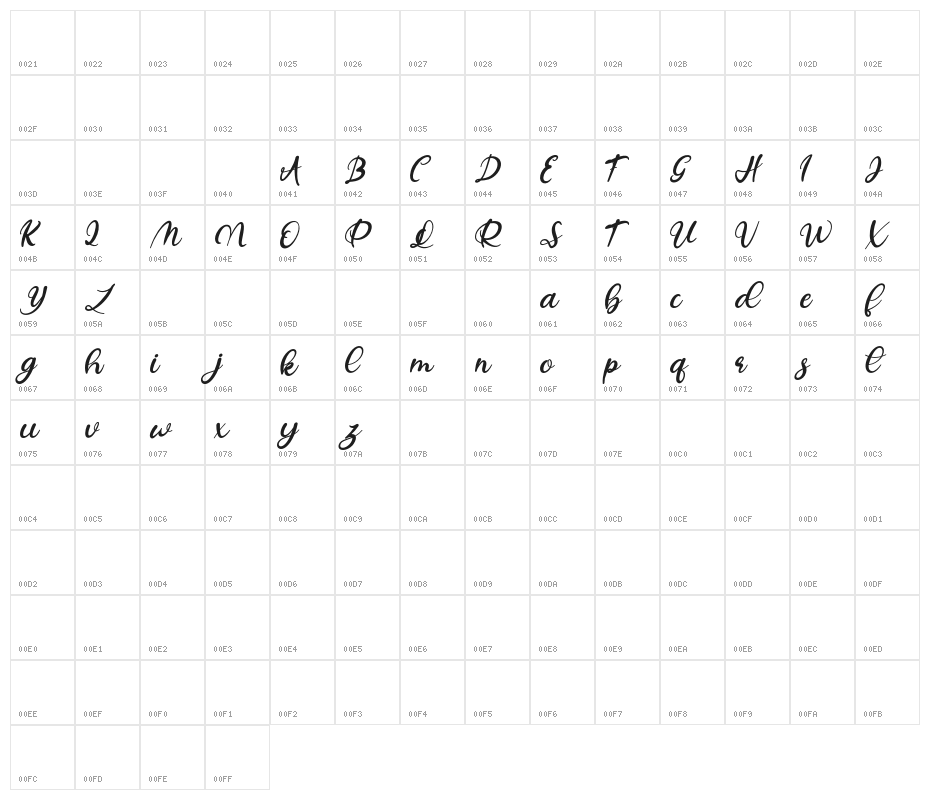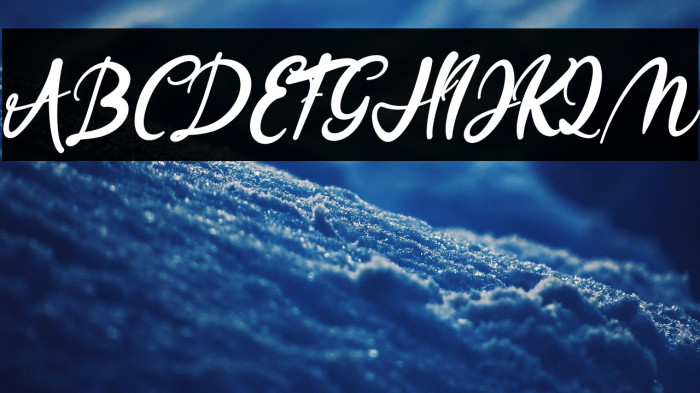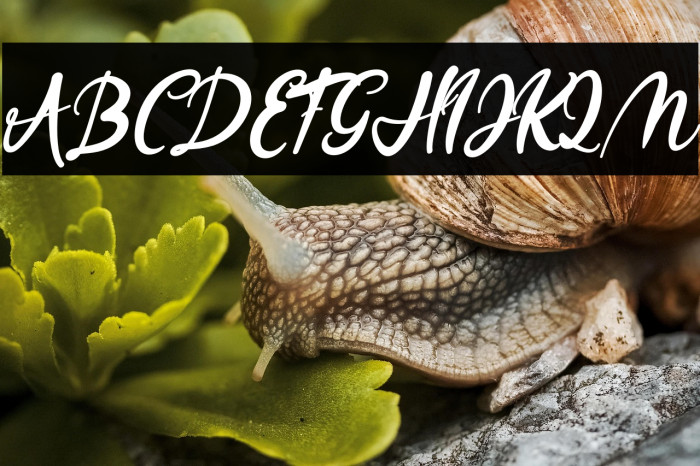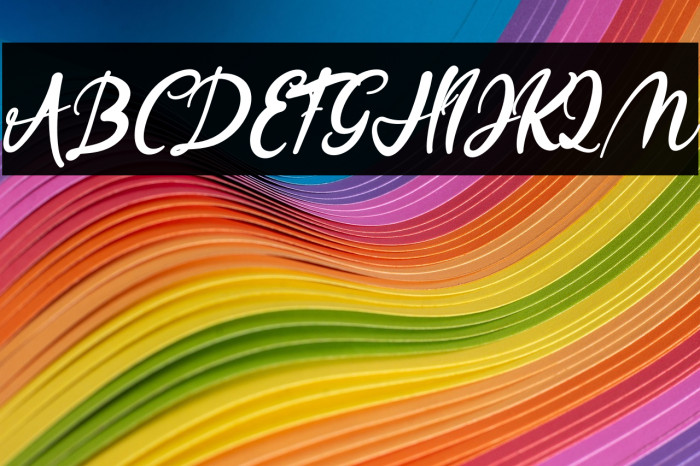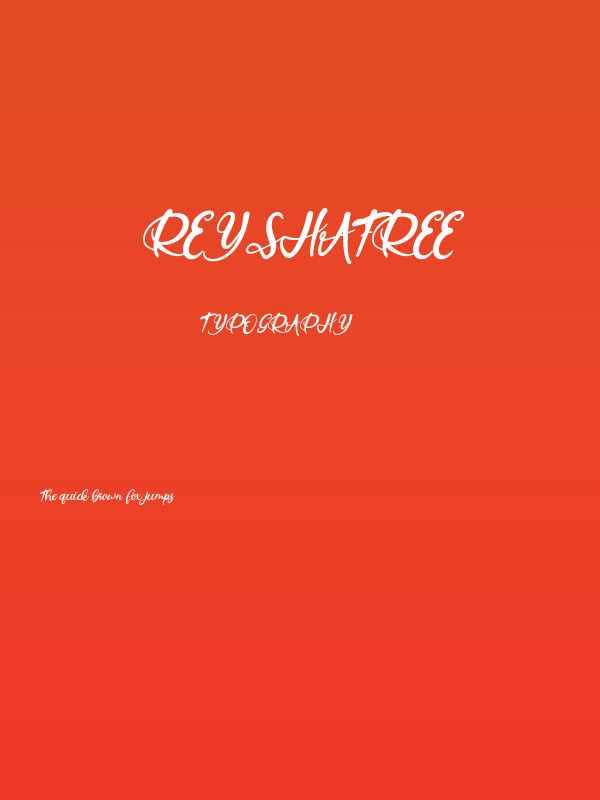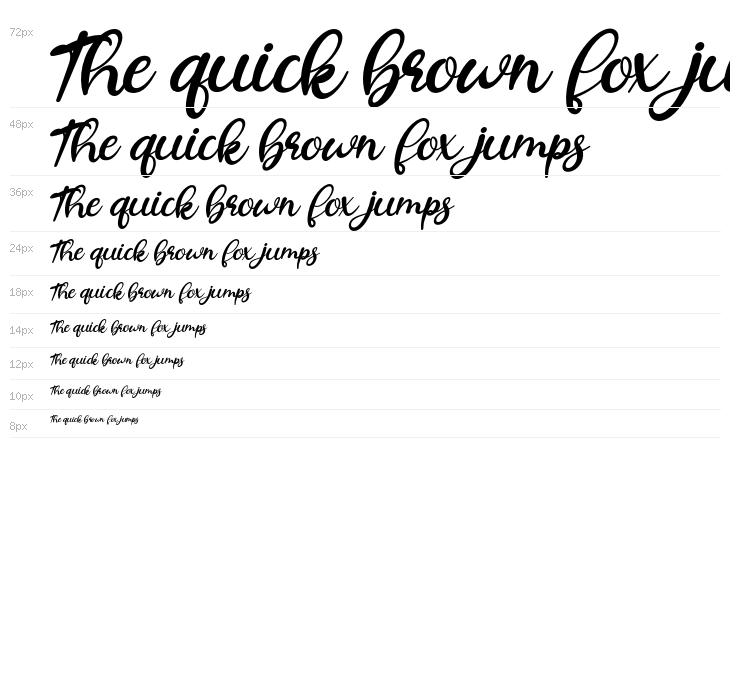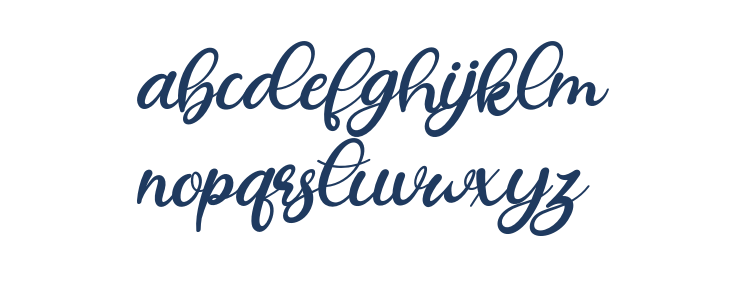
ReyshaFREE Font
ReyshaFREE Description
This font exudes a lively and dynamic energy, characterized by its flowing script style that mimics elegant handwriting. The uppercase letters are bold and expressive, with sweeping curves and loops that add a sense of movement and flair. The lowercase letters maintain a consistent style, offering a harmonious blend of readability and artistic expression. The strokes are thick, providing a strong visual impact, while the connections between letters are smooth and fluid, enhancing the overall cohesiveness of the text. This font is ideal for projects that require a personal touch, such as invitations, greeting cards, or branding materials that aim to convey sophistication and creativity.